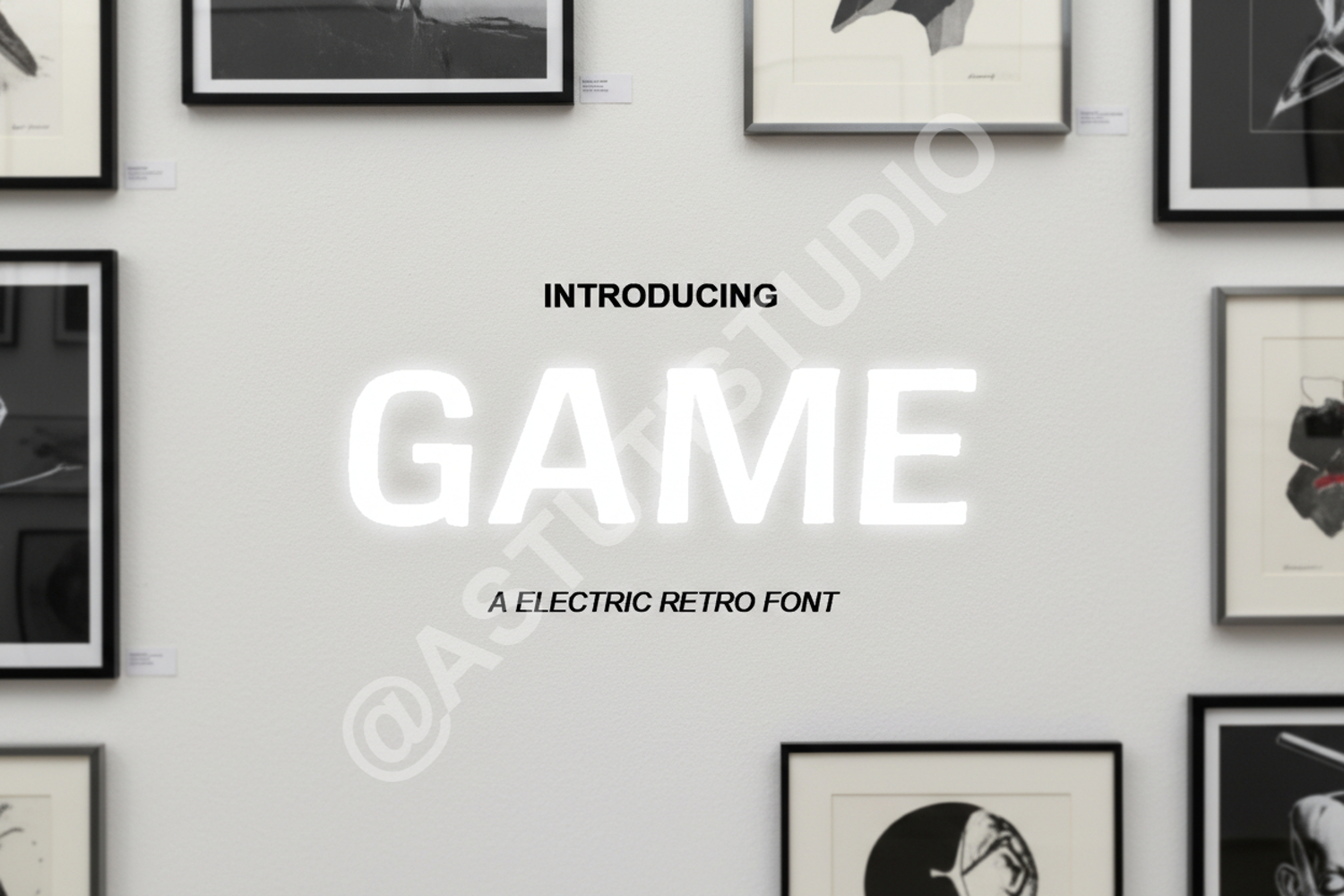
Game - Modern Bold Sporty Display Typeface
Game
Elevate your design projects with Game, a premium display font engineered for high impact and modern aesthetics. Designed with precision, this typeface balances bold geometry with professional elegance, making it an essential tool for any creative professional. Whether you are working on a high-octane sports brand or a sleek tech startup, Game provides the versatility and weight needed to stand out.
- Branding and Identity: Perfect for bold logos and corporate identities.
- Sports and Athletics: Ideal for jersey numbering, team branding, and stadium graphics.
- Gaming and Esports: Designed to look sharp on streaming overlays and gaming merchandise.
- Print Media: Excellent for high-visibility posters, magazine headlines, and flyers.
- Apparel Design: Clean lines that work perfectly for screen printing and embroidery.